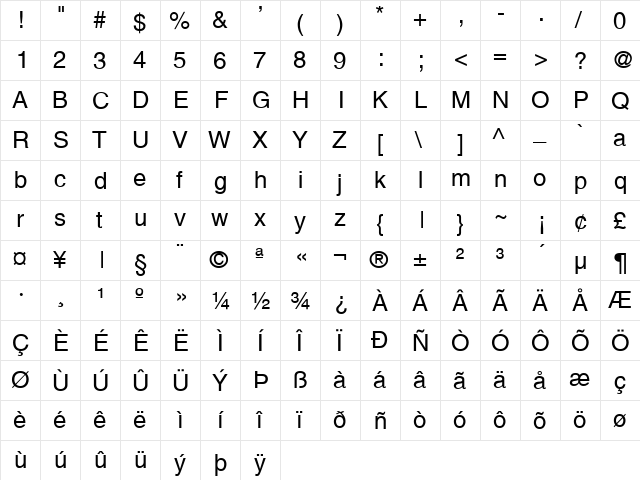
Switzerland Plain
Design Context for Switzerland Typeface
Switzerland is a composed and adaptable typeface that performs quietly and consistently across a wide range of design contexts.